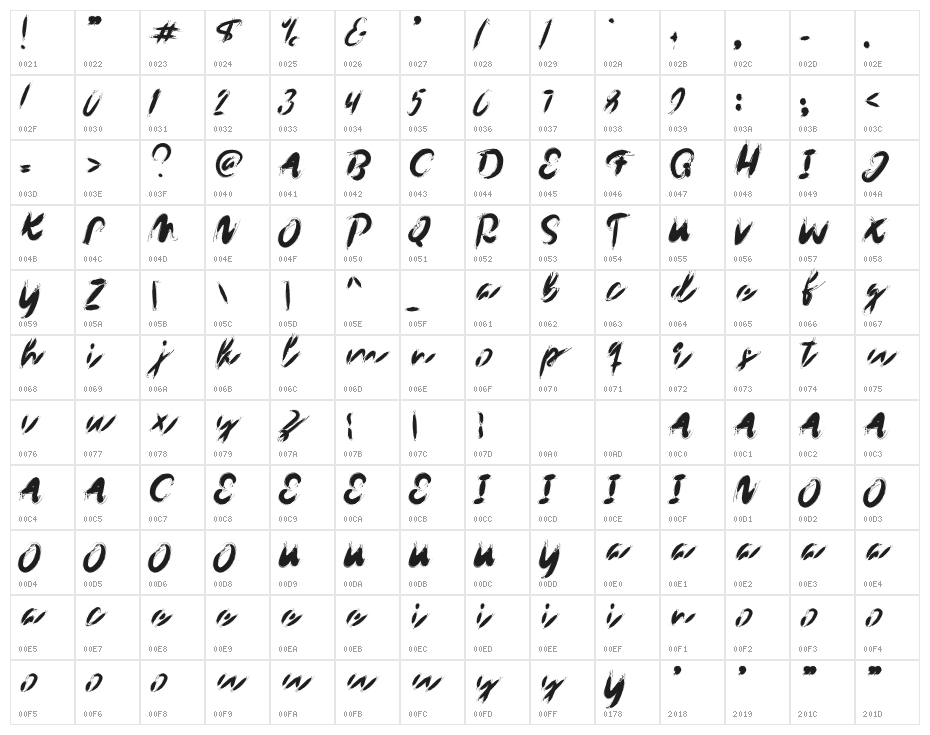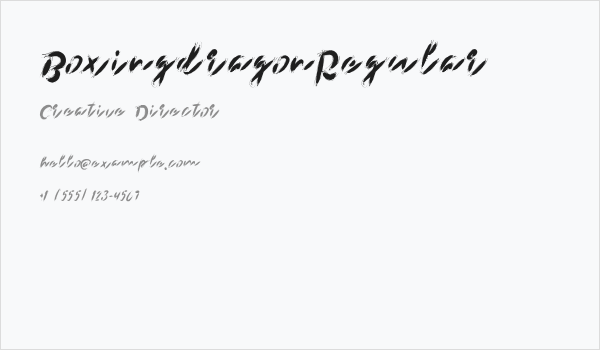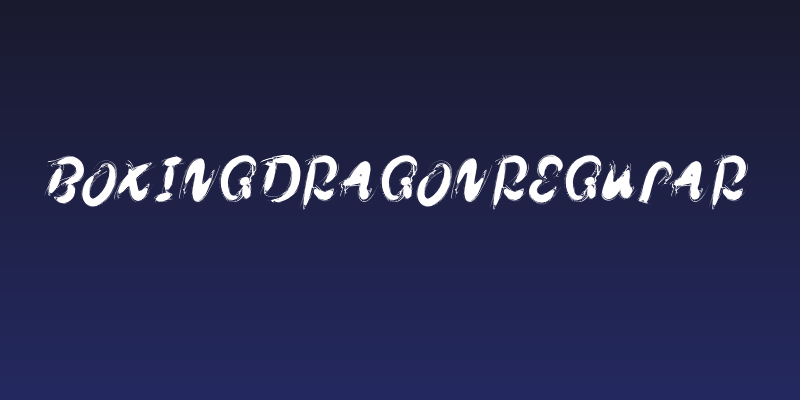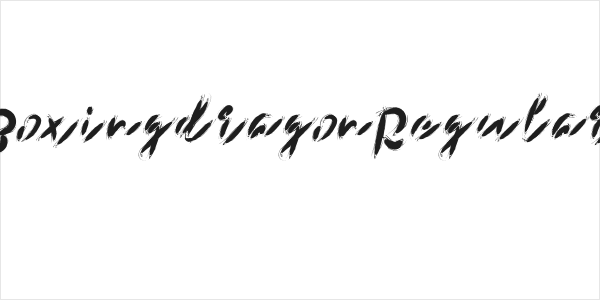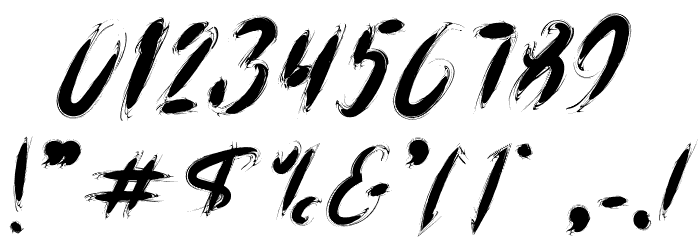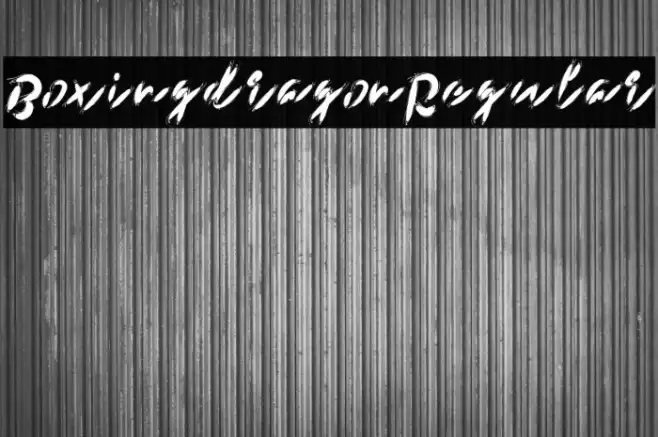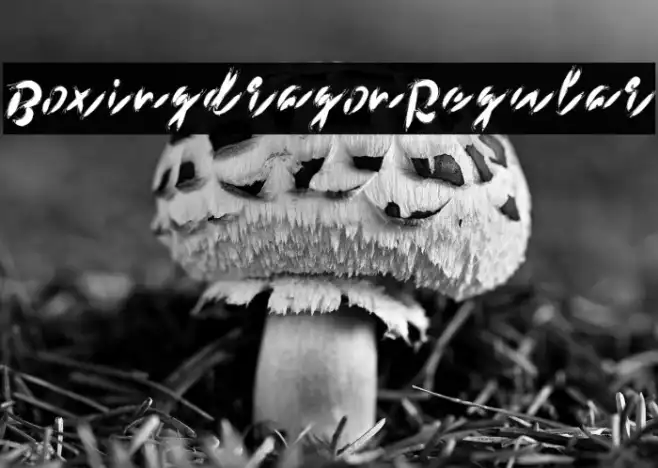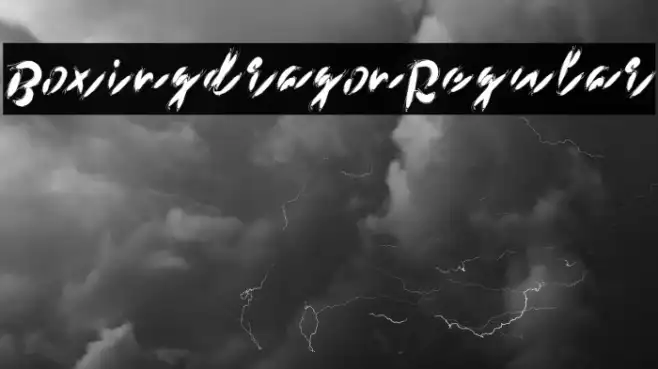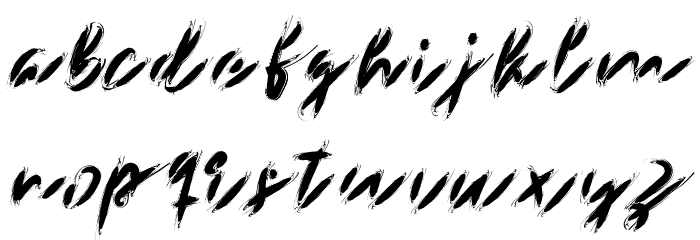
BoxingdragonRegular Font
This font features a dynamic and energetic brush script style, characterized by bold, sweeping strokes that convey a sense of movement and fluidity. The letters are slightly slanted, adding to the sense of motion, and each character has a unique, hand-painted appearance. The uppercase and lowercase letters maintain a consistent style, with the uppercase being more pronounced and the lowercase offering a more subtle flair. The numbers and special characters follow the same energetic design, making the font versatile for various creative applications. The overall look is both artistic and bold, making it suitable for projects that require a strong visual impact.
| Proposed Projects | Ideal for branding, posters, album covers, and any project needing a bold, artistic touch. |